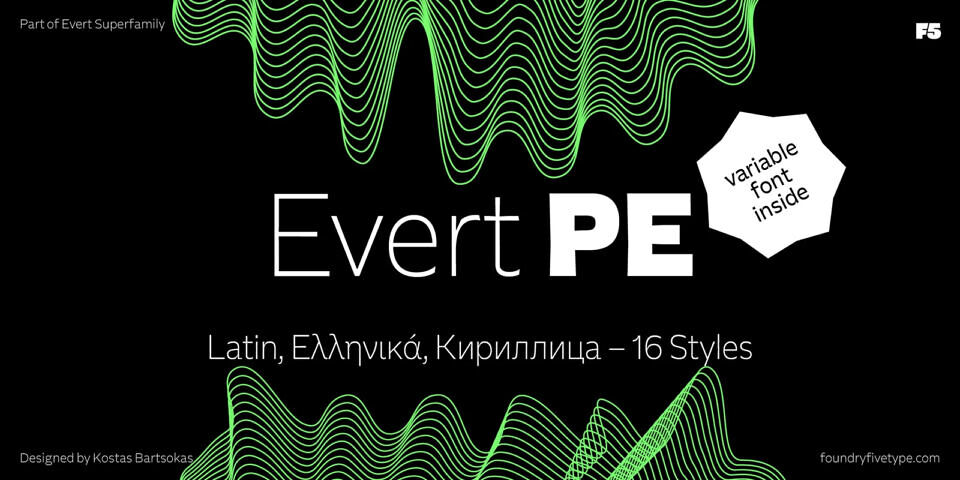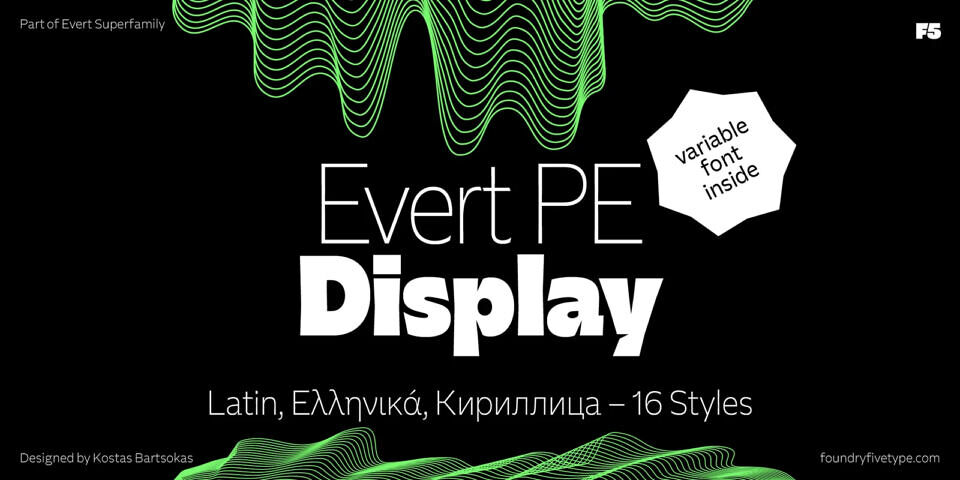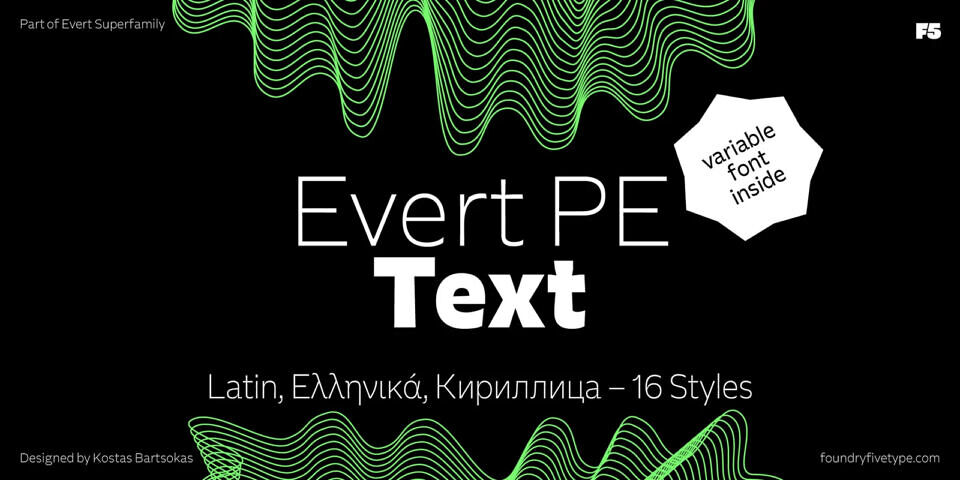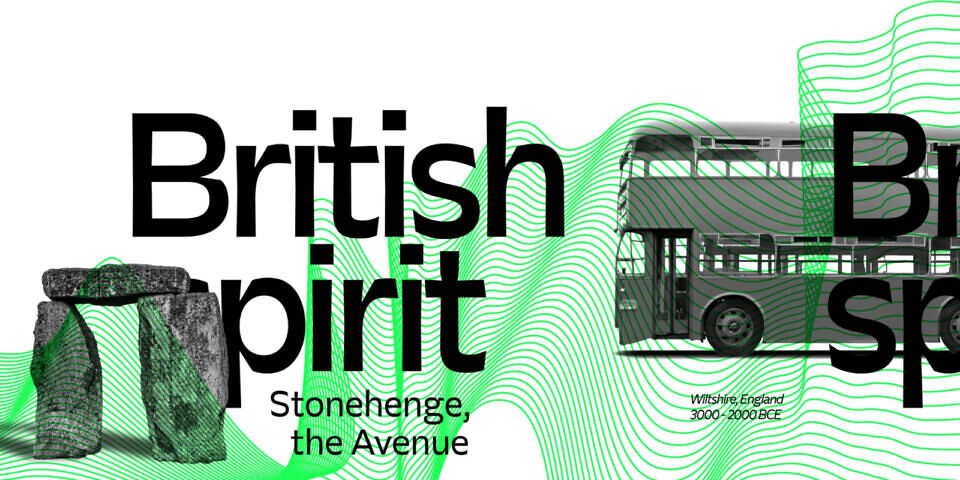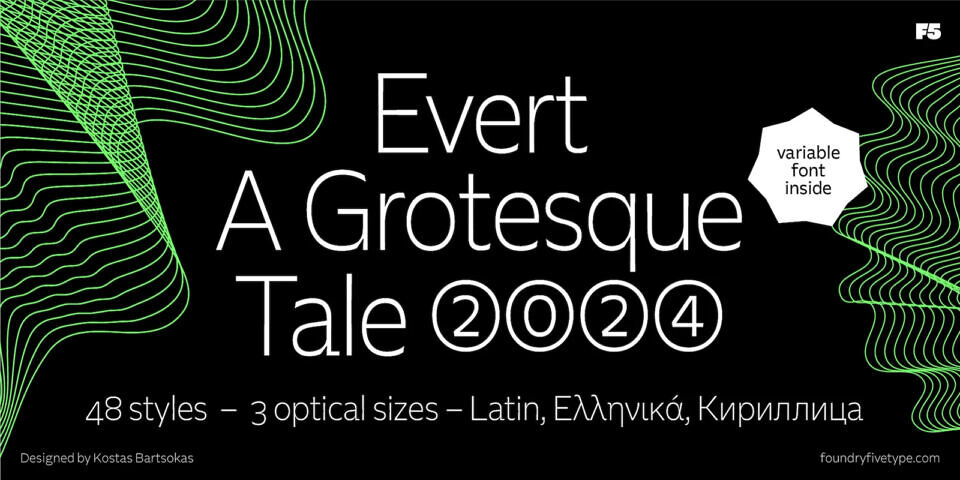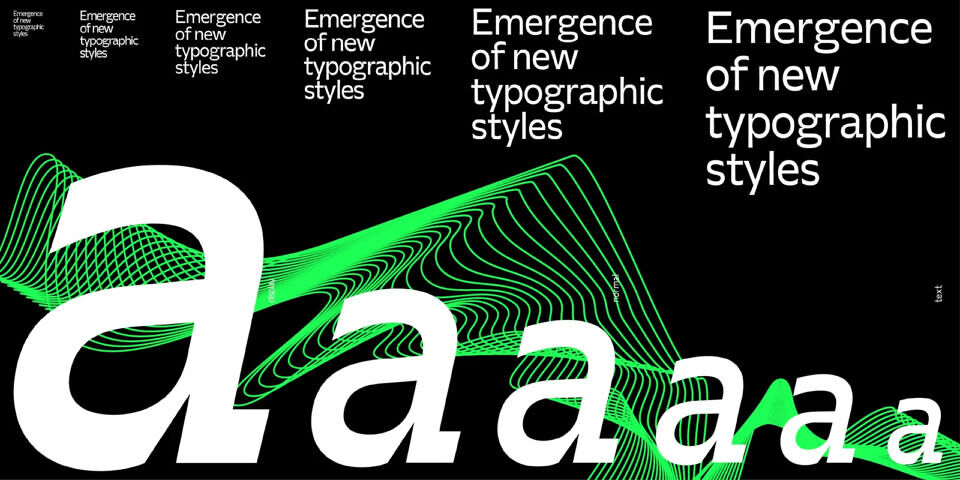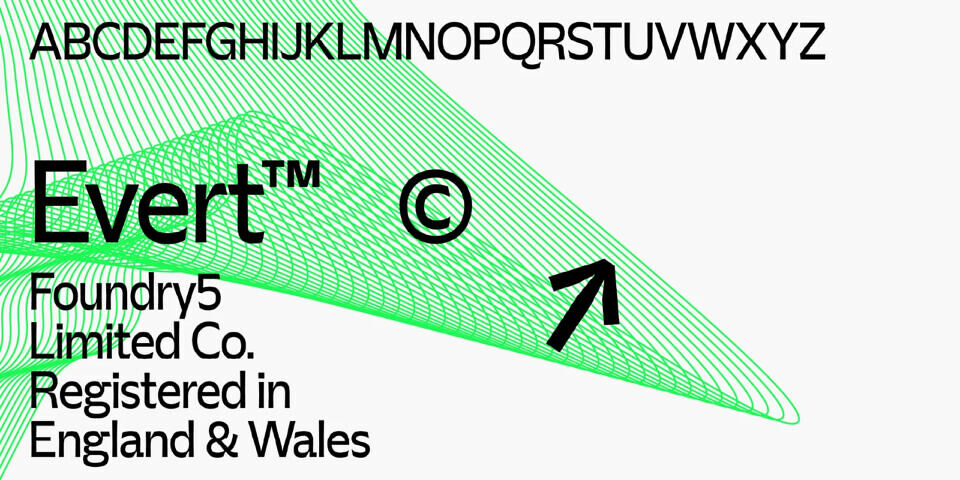
Welcome to the world of Evert, a typeface that breaks the mould while respectfully nodding to its classic roots. Like a themed rollercoaster it invites you on a ride over the plains of the early grotesques, into the tunnels of mechanical essence, up on the hills of the experimental, and over the district of contemporary modernity. This clearly isn’t your grandma’s typeface!
Evert supports Latin, Greek, and Cyrillic, and offers goodies such as localised forms, old-style numerals, tabular numerals, and discretionary ligatures. It comes in 48 styles and 3 optical sizes – text for your lengthy documents, display for wowing your crowds, and plain Evert for when you want the best of both worlds.